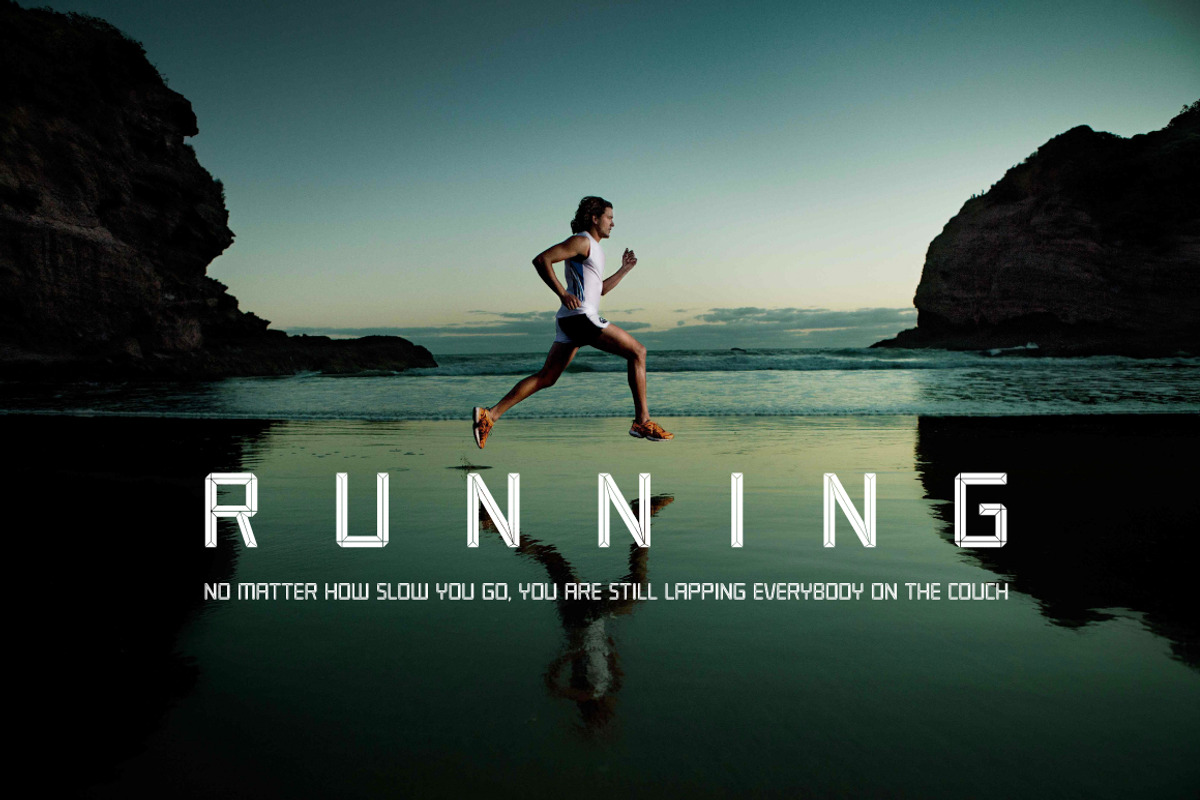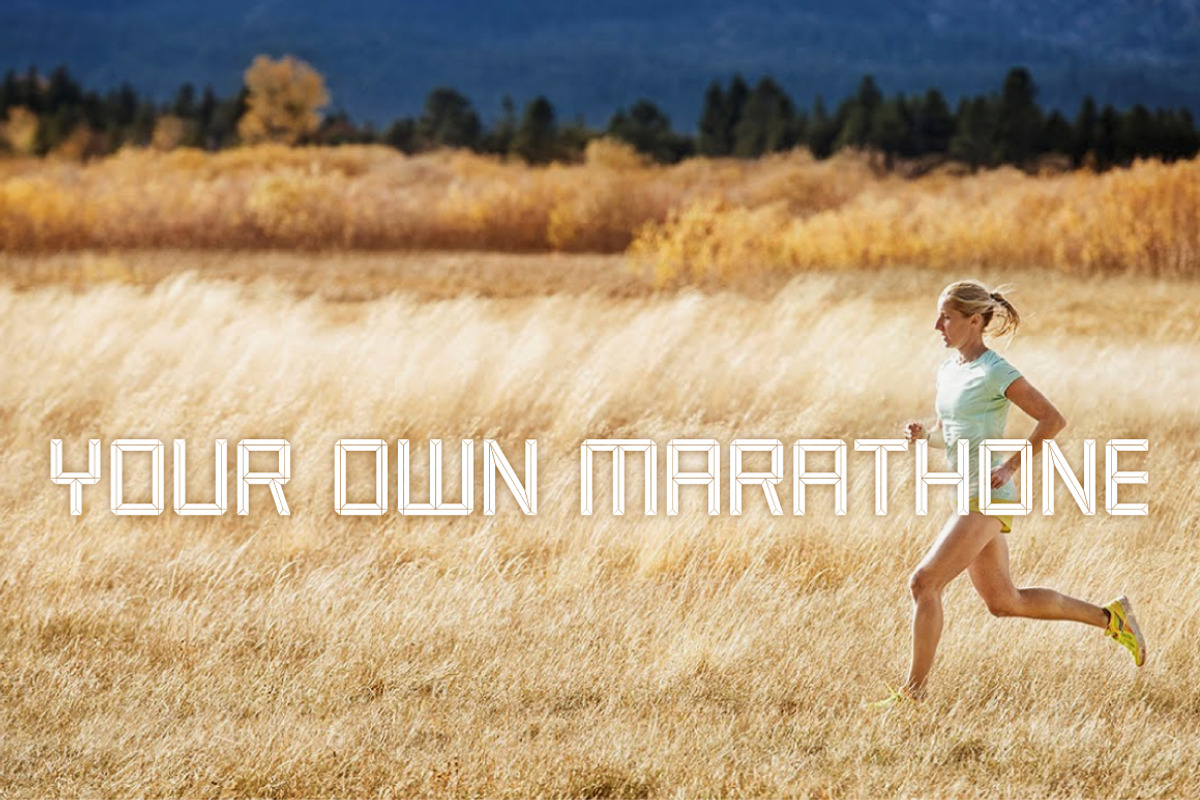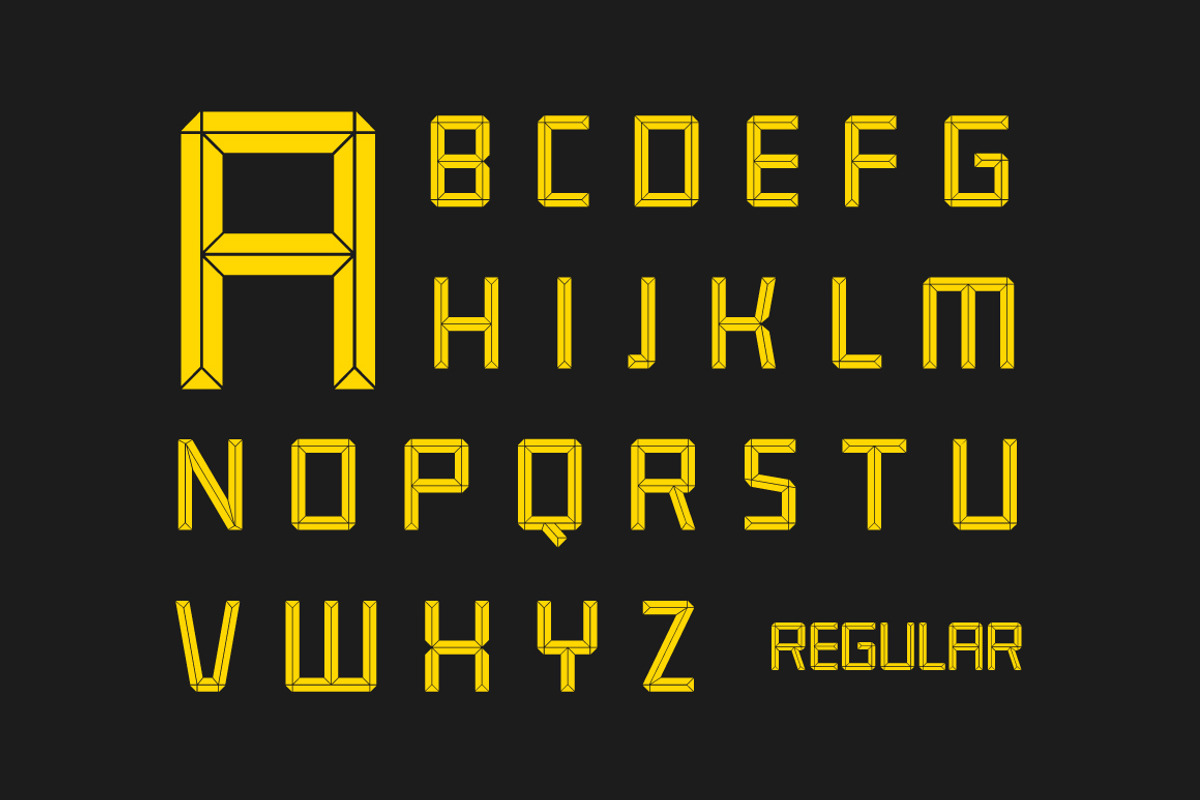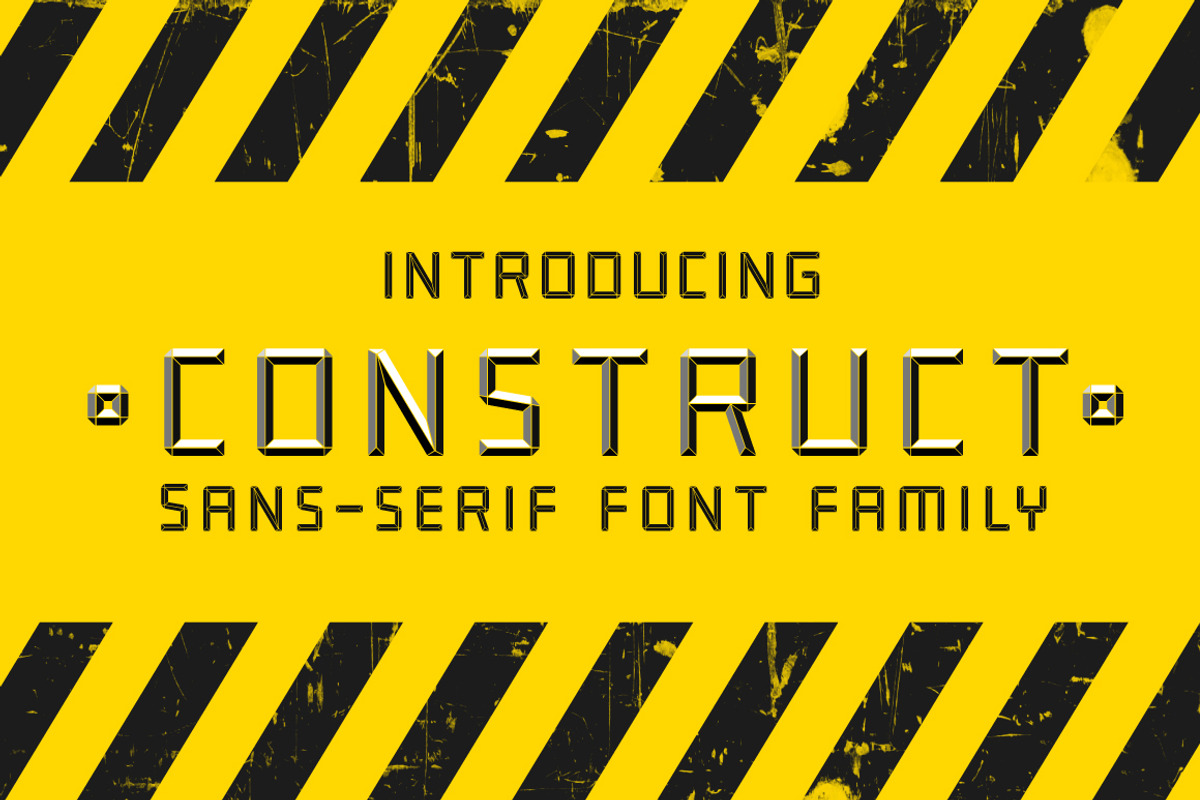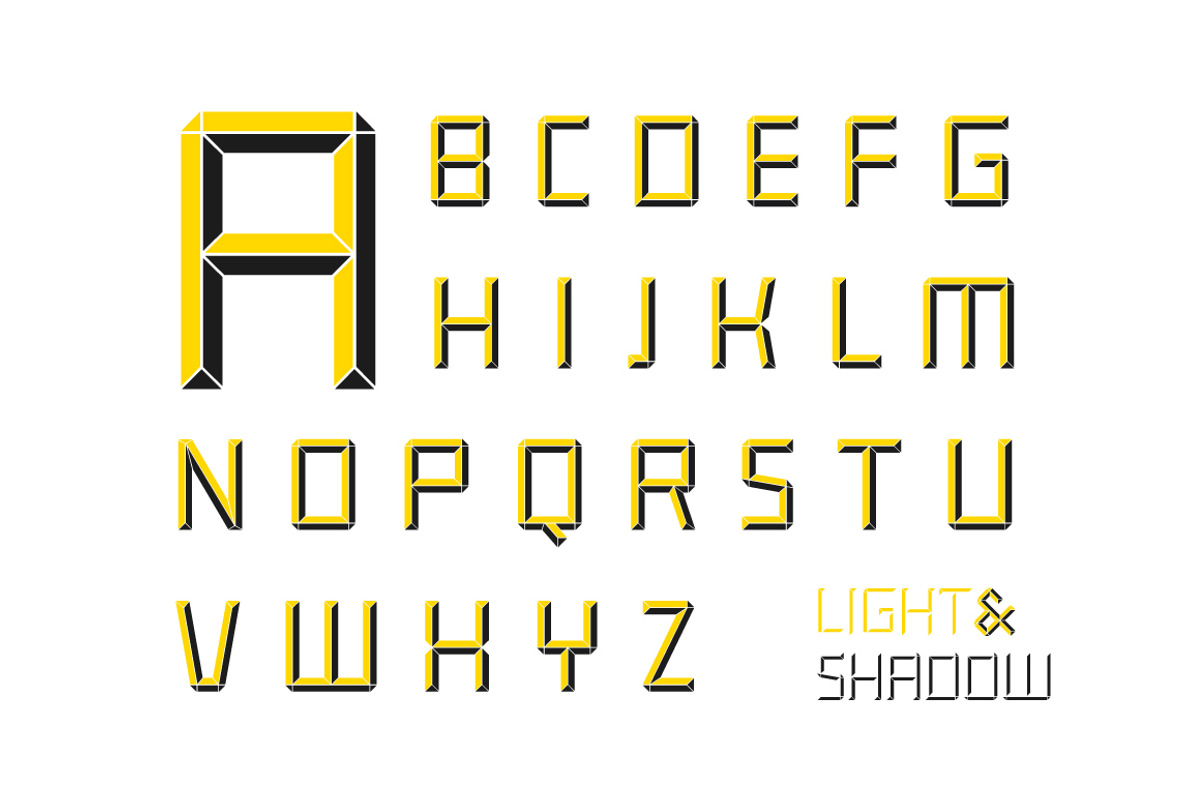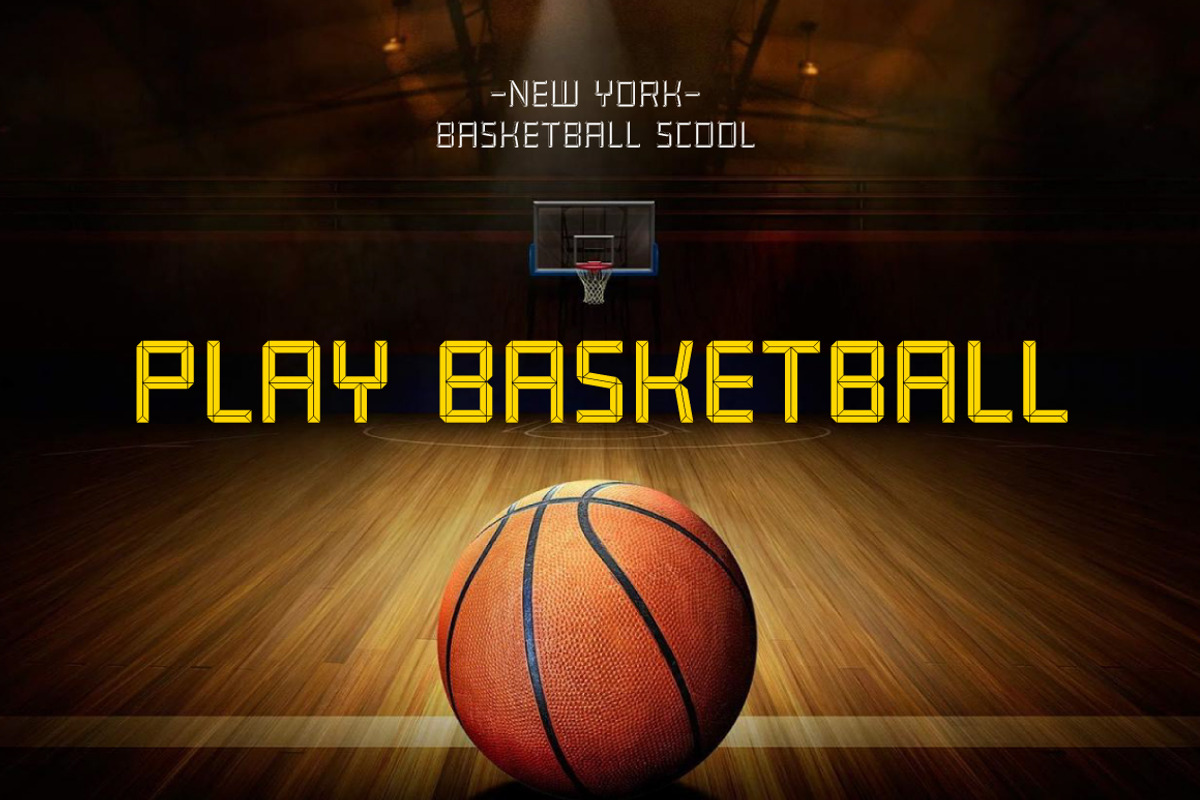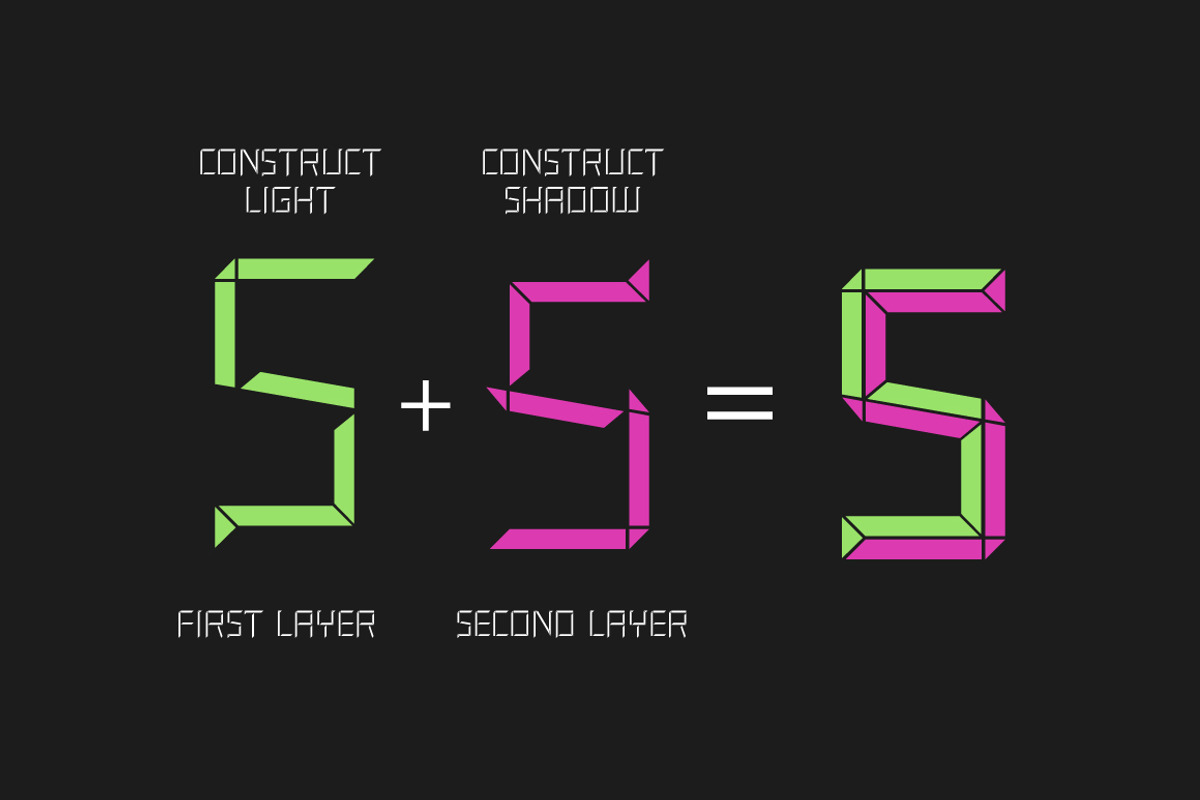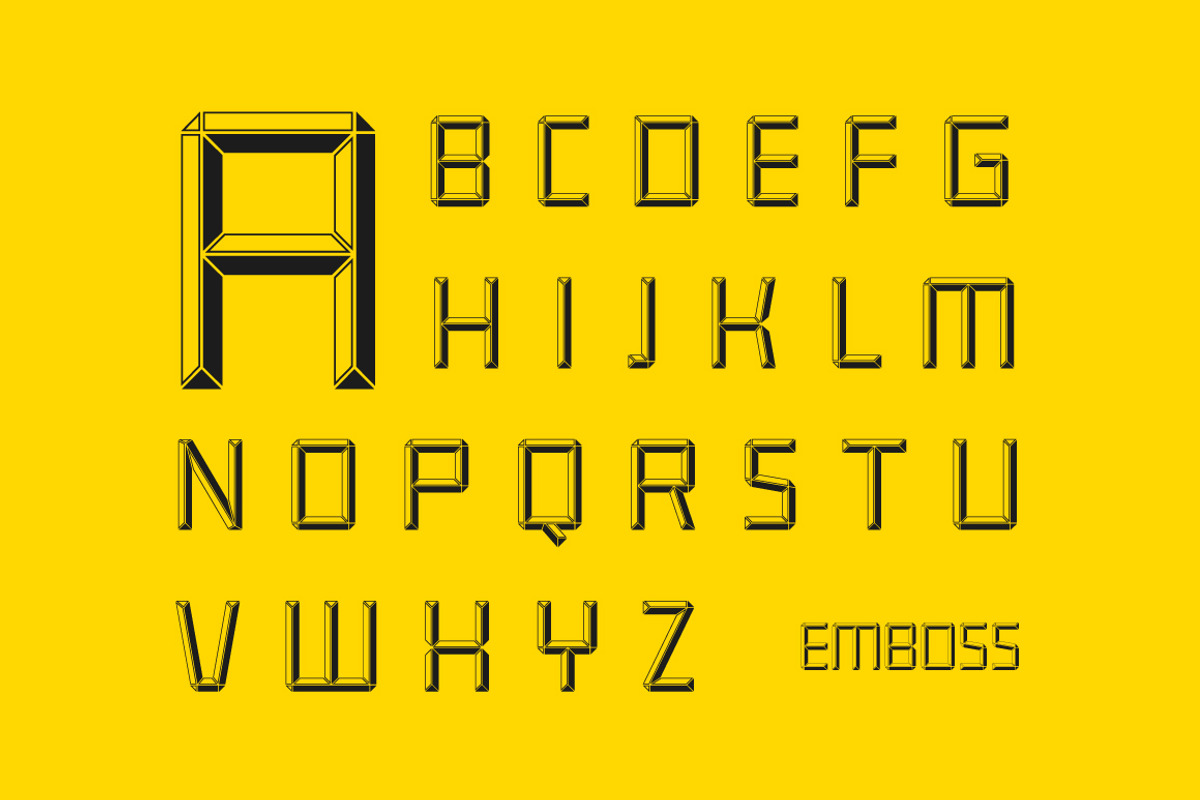
Construct family font
Construct family font by Fontop is a font selected for branding, posters, packaging, typography.
- CONSTRUCT Light
- CONSTRUCT Regular
- CONSTRUCT Emboss
- CONSTRUCT Shadow
Why Construct family font is worth a look
Construct family font by Fontop fits naturally into Branding, posters, packaging, typography.